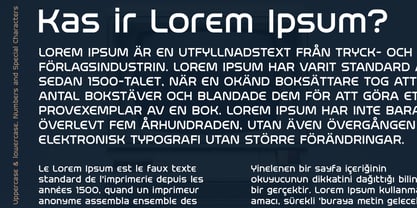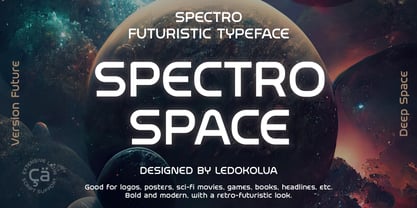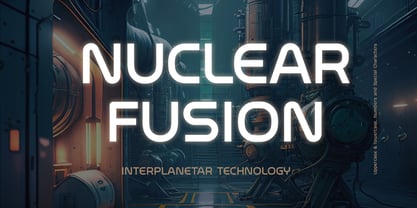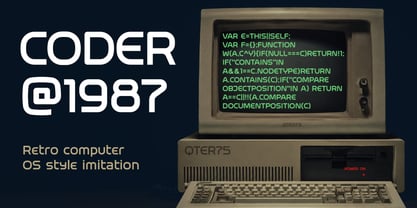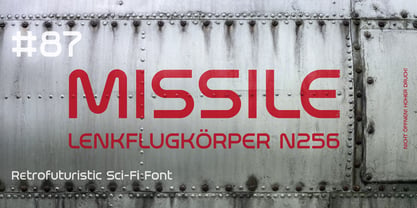
SpectroSpace
by Ledokolua
SpectroSpace is a futuristic display font inspired by retro sci-fi aesthetics, interplanetary technology, and industrial space engineering of the 70s–80s era. Combining smooth geometric forms with a clean high-tech structure, it delivers a bold retro-futuristic atmosphere perfect for modern digital and cinematic design.
Perfect for logos, sci-fi movies, games, tech branding, posters, album covers, YouTube thumbnails, UI design, packaging, apparel, esports, books, and futuristic headlines. The font works especially well in cyberpunk, space, industrial, and science fiction themes.
SpectroSpace includes uppercase and lowercase characters, numbers, punctuation, special symbols, and an extended Latin character set with multilingual support.
Designers: Oleg Sibiriakov
Foundry: Ledokolua
Ledokolua is an independent type foundry founded by graphic designer and type creator Oleg Sibiriakov. With nearly three decades of experience in graphic design, Oleg brings a strong understanding of how typography works in real design environments. His professional focus on packaging design and corporate identity has shaped a practical, design-driven approach to type development — one that values clarity, character, and strong visual impact. The first Ledokolua typeface was created in 1997. Since then, typography has remained an essential part of Oleg’s creative work, evolving alongside his experience in branding and visual communication. Ledokolua specializes in confident, expressive typefaces with a distinctive personality. The foundry’s designs are created with real-world applications in mind — from packaging and brand identities to editorial and print design — where typography plays a key role in shaping a memorable visual presence. The studio’s philosophy is simple: strong ideas, balanced forms, and typefaces that give designers powerful tools to build bold and recognizable brands.